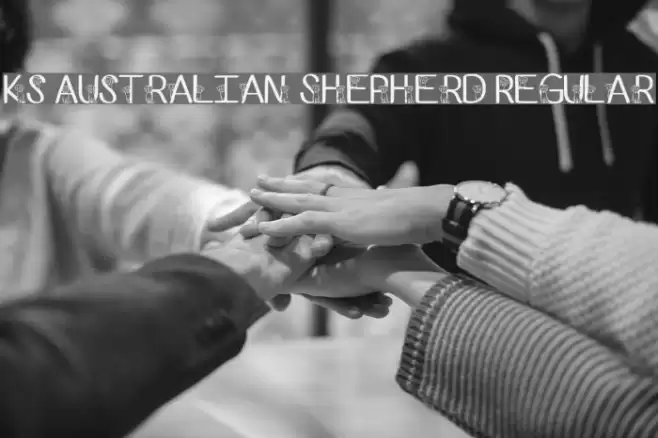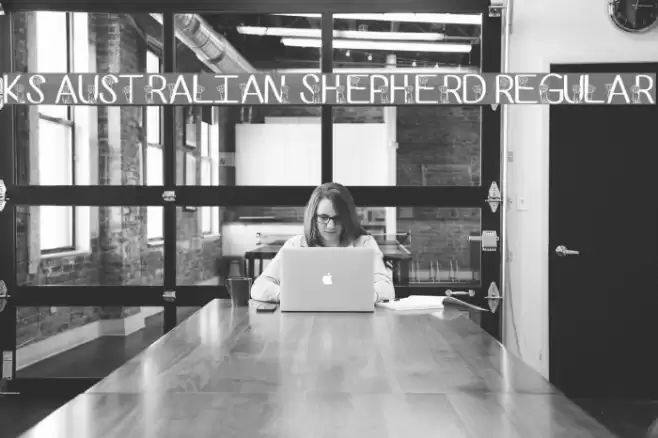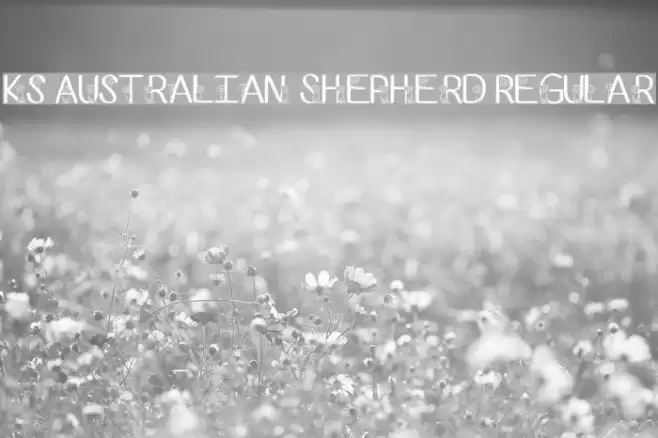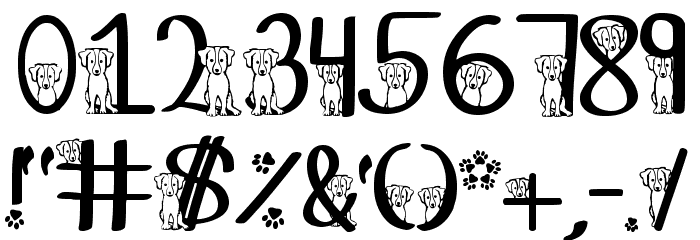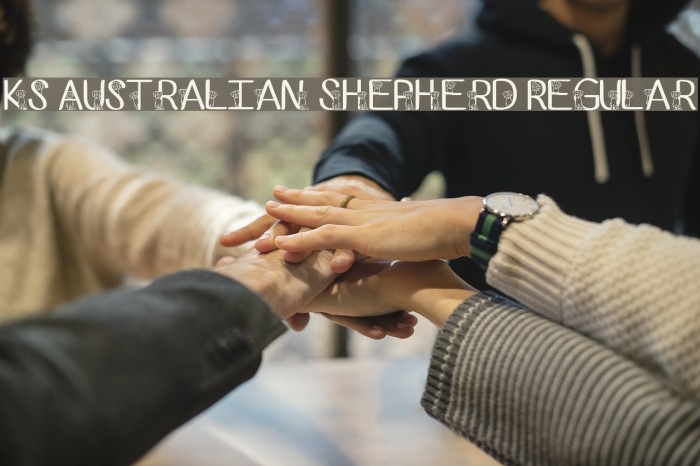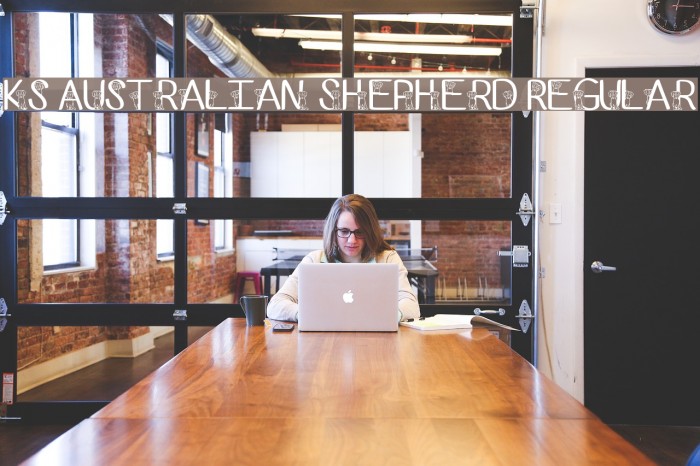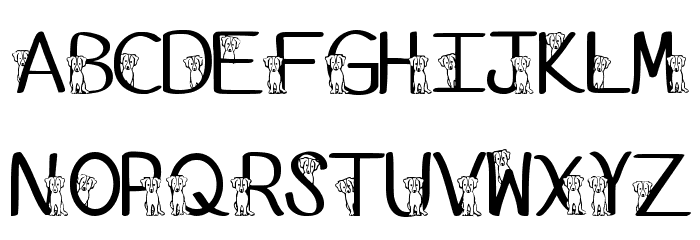
Ks Australian Shepherd Regular Font
Ks Australian Shepherd Regular Description
This playful and whimsical font features a unique design where each letter is accompanied by an illustration of an Australian Shepherd dog. The characters are bold and slightly rounded, giving them a friendly and approachable appearance. The integration of the dog illustrations within the letters adds a decorative and thematic element, making it ideal for projects related to pets, children, or playful themes. The font maintains a consistent style across uppercase, lowercase, numbers, and special characters, ensuring a cohesive look in any design.
A playful font with Australian Shepherd dog illustrations integrated into each character from Uncategorized fonts.
- Proposed Projects: Ideal for pet-related branding, children's books, playful posters, and themed invitations.